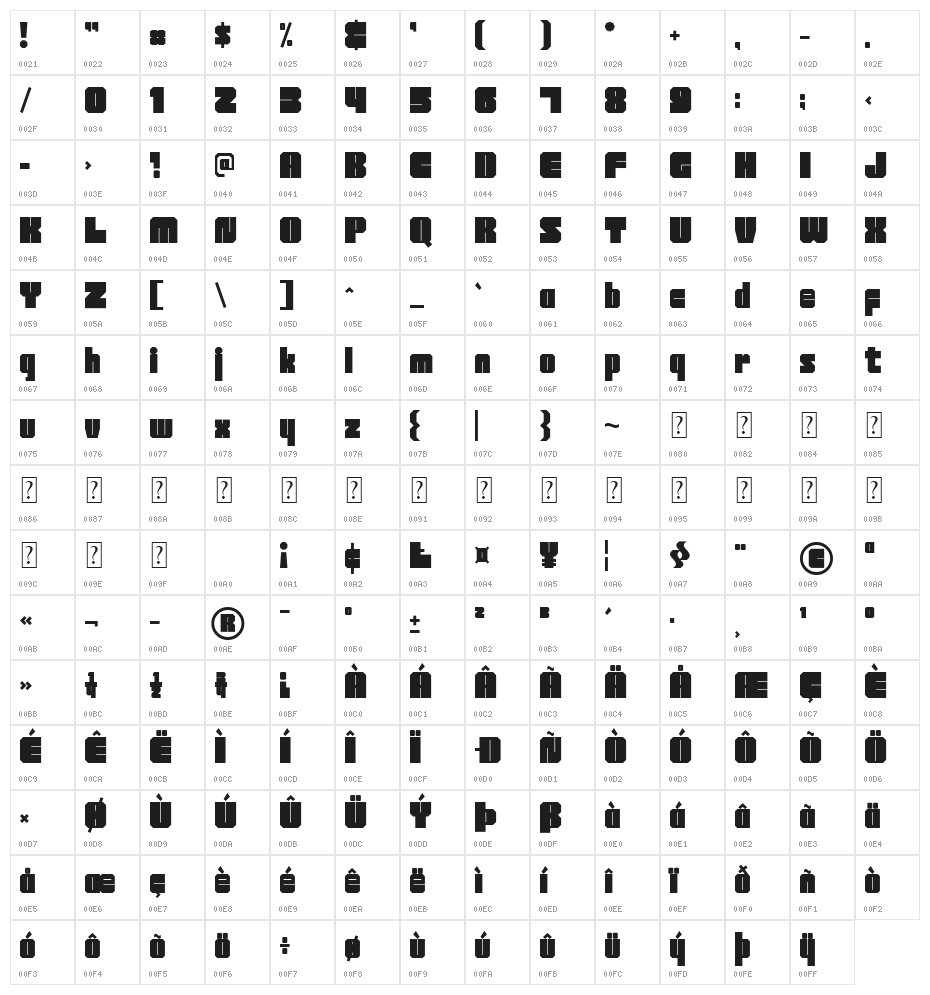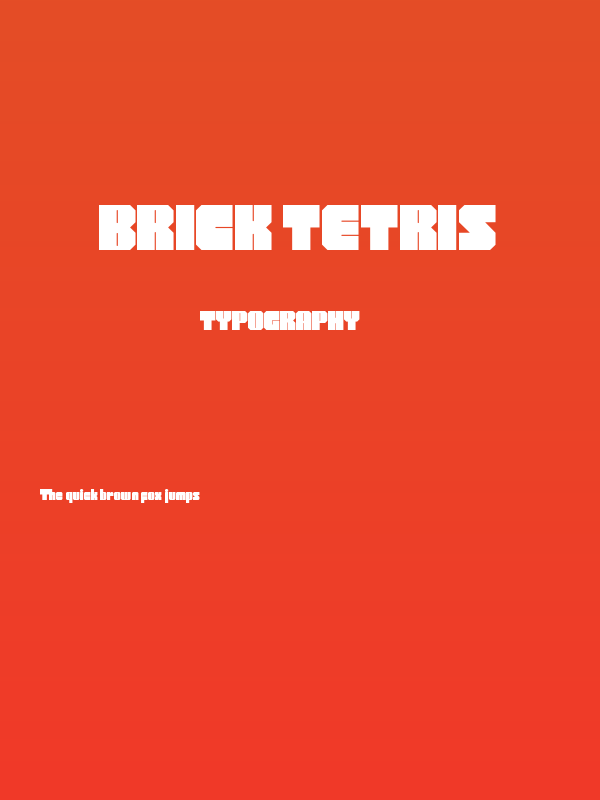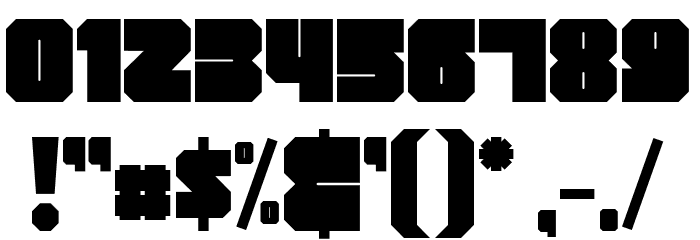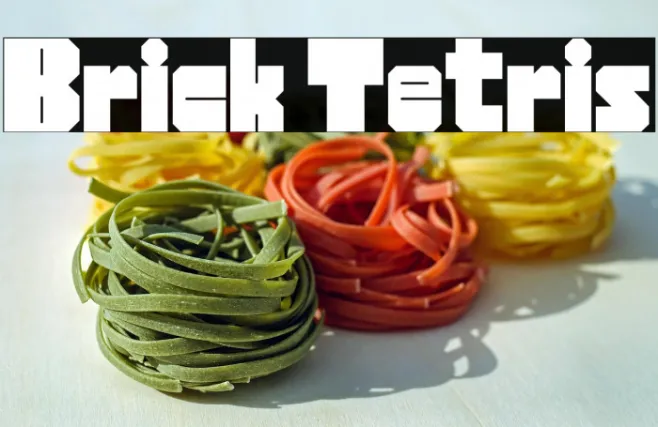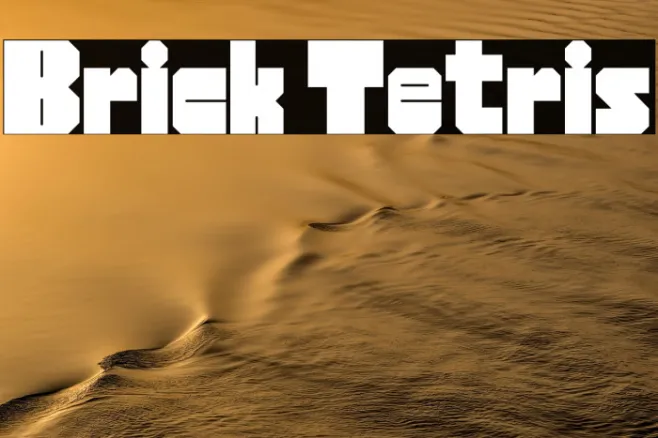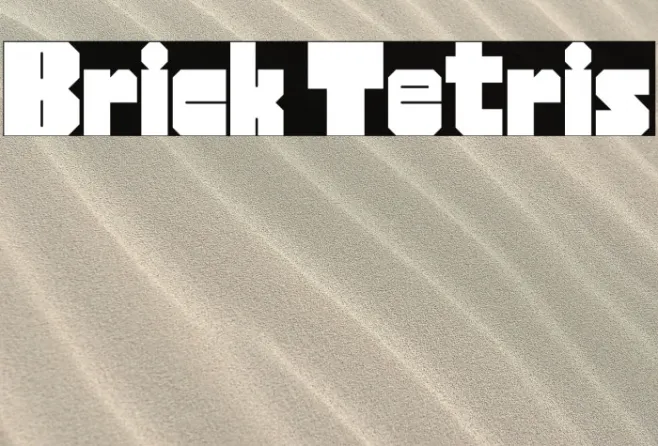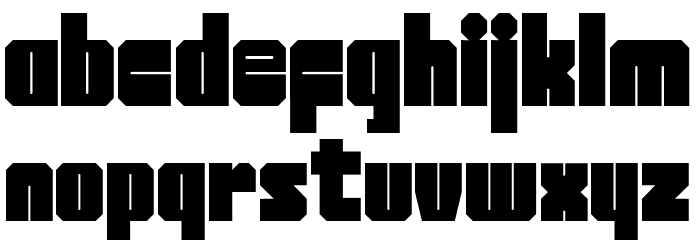
Brick Tetris Font
Brick Tetris Description
This font features a bold, blocky design reminiscent of classic video game aesthetics. The characters are constructed with sharp, angular edges and a uniform thickness, giving them a strong, geometric appearance. The uppercase and lowercase letters maintain a consistent style, with the lowercase being slightly smaller but equally bold. Numbers and special characters follow the same design principles, ensuring a cohesive look across all glyphs. The font's solid, brick-like structure makes it highly legible and impactful, ideal for capturing attention.
| Overall Style | Vintage |
| Proposed Projects | Perfect for video game titles, retro-themed posters, and branding that requires a strong, nostalgic feel. |